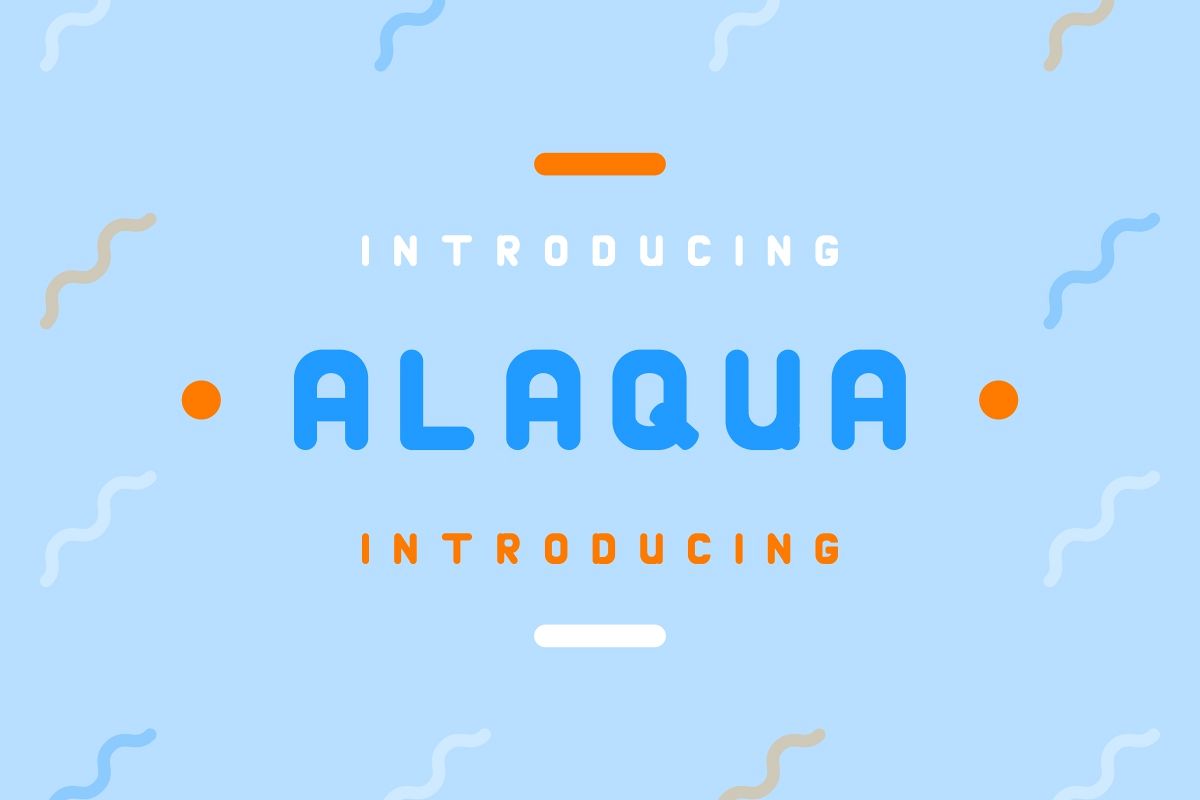
Alaqua
It has 3 styles : Regular, Italic and OutlineThe Glyph are made smooth. It looks awesome for any food packaging, beverage, street food, summer cafe, tropical vibe, cheer theme, bright and colorful.Comes with OTF, TTF and WOFF. Plus instruction if you need help.It has exclusive shape and will bring an awesome look  Enjoy!